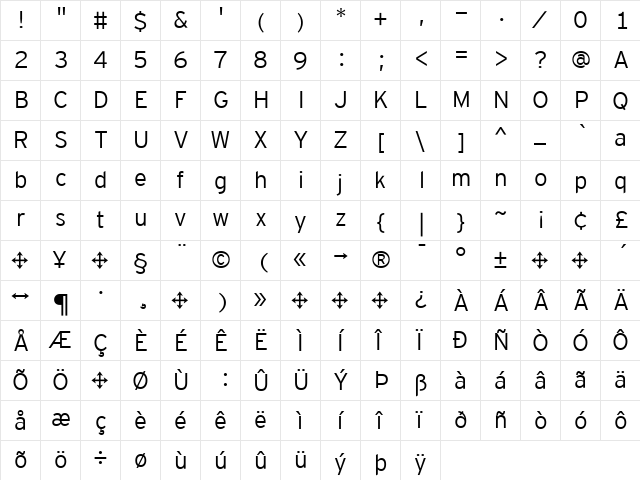
Interstate Mono - Lgt Regular
Design Context for Interstate Mono - Lgt Typeface
Interstate Mono - Lgt brings the precise, column-aligned rhythm of monospaced typography to designs that value technical clarity and systematic order.
A natural fit for code editors, technical documentation, developer-focused branding, and terminal-inspired UI.
Pro Tip: Pair Interstate Mono - Lgt with a proportional sans for UI contexts where code-style labels and regular body copy need to coexist.